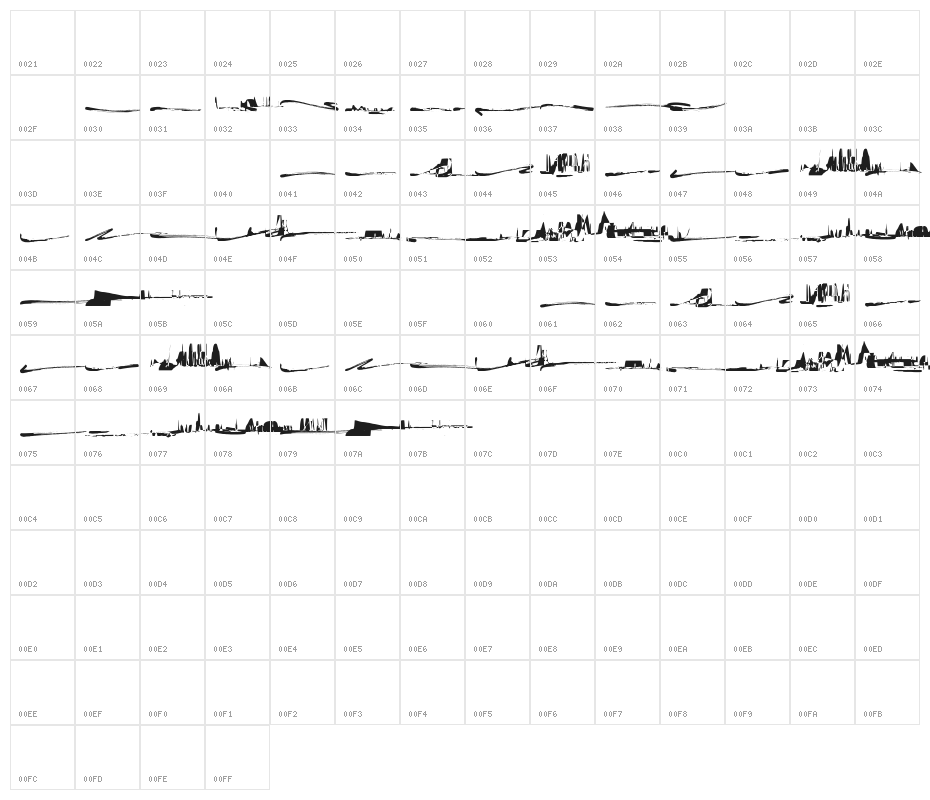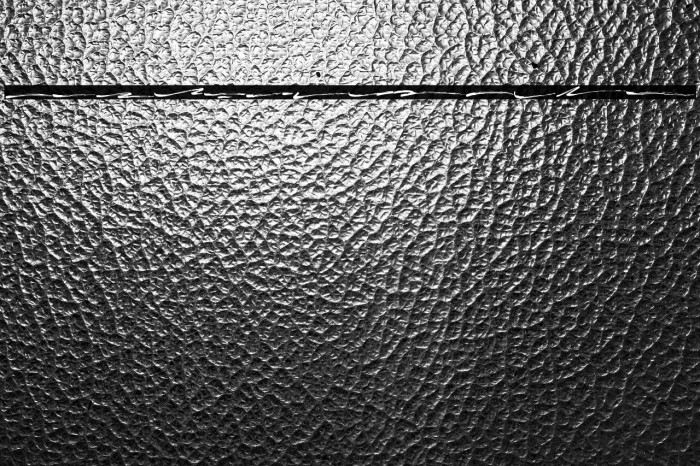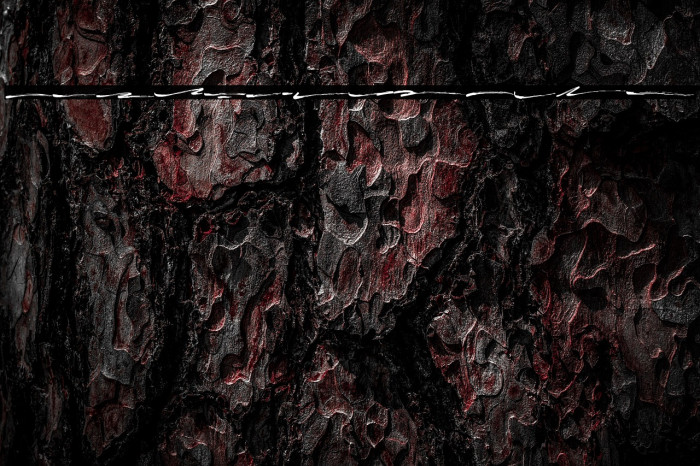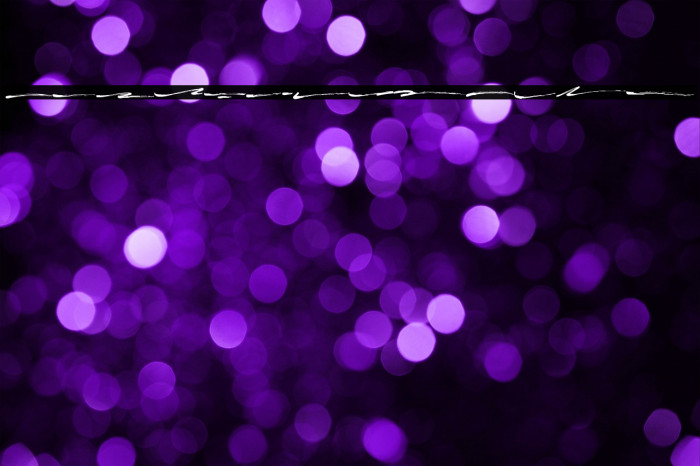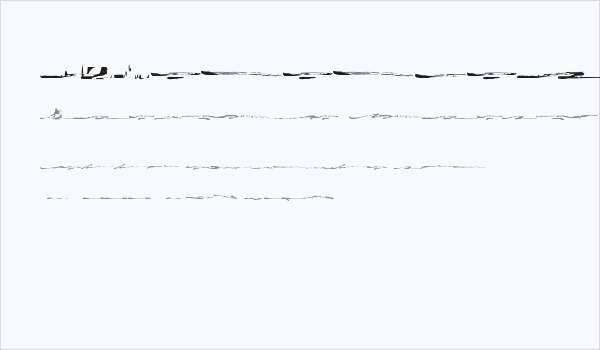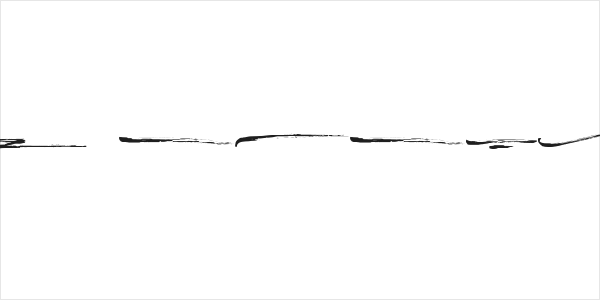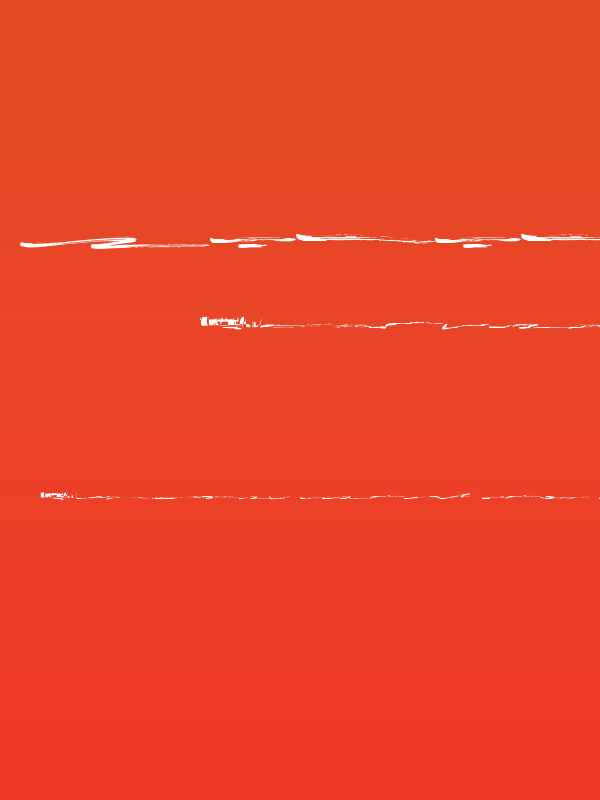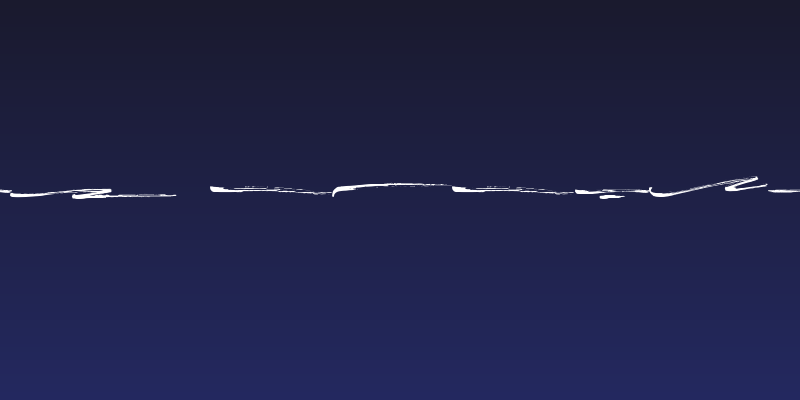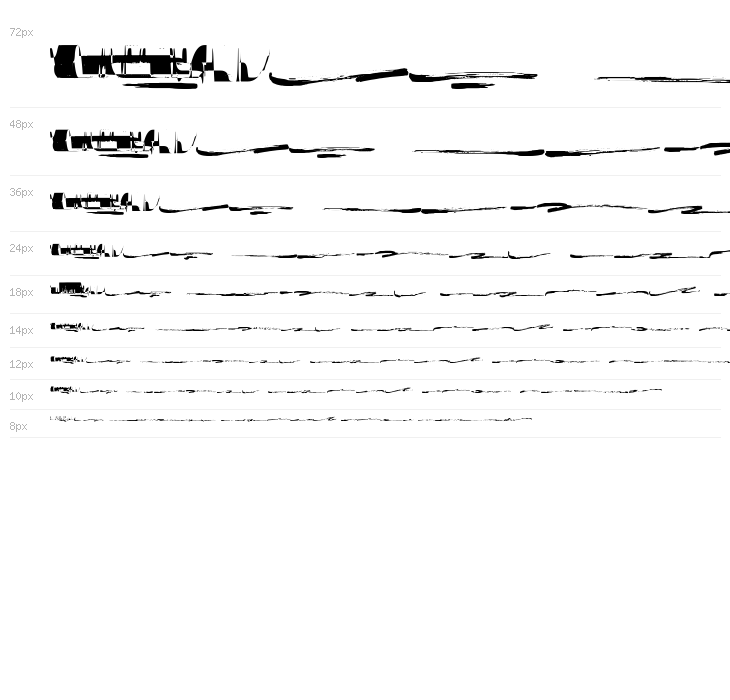
Remember Moment swash Font
Remember Moment swash Description
This design features a series of elegant, flowing lines that resemble delicate swashes. The lines are thin and graceful, with subtle variations in thickness that create a sense of movement and fluidity. The overall appearance is reminiscent of calligraphic strokes, suggesting a refined and artistic style. These swashes could be used to add a decorative touch to various design projects, enhancing the visual appeal with their sophisticated and intricate patterns.
| Use Case | Decorative elements |
| Proposed Projects | Ideal for use in wedding invitations, greeting cards, or as decorative elements in graphic design projects. |